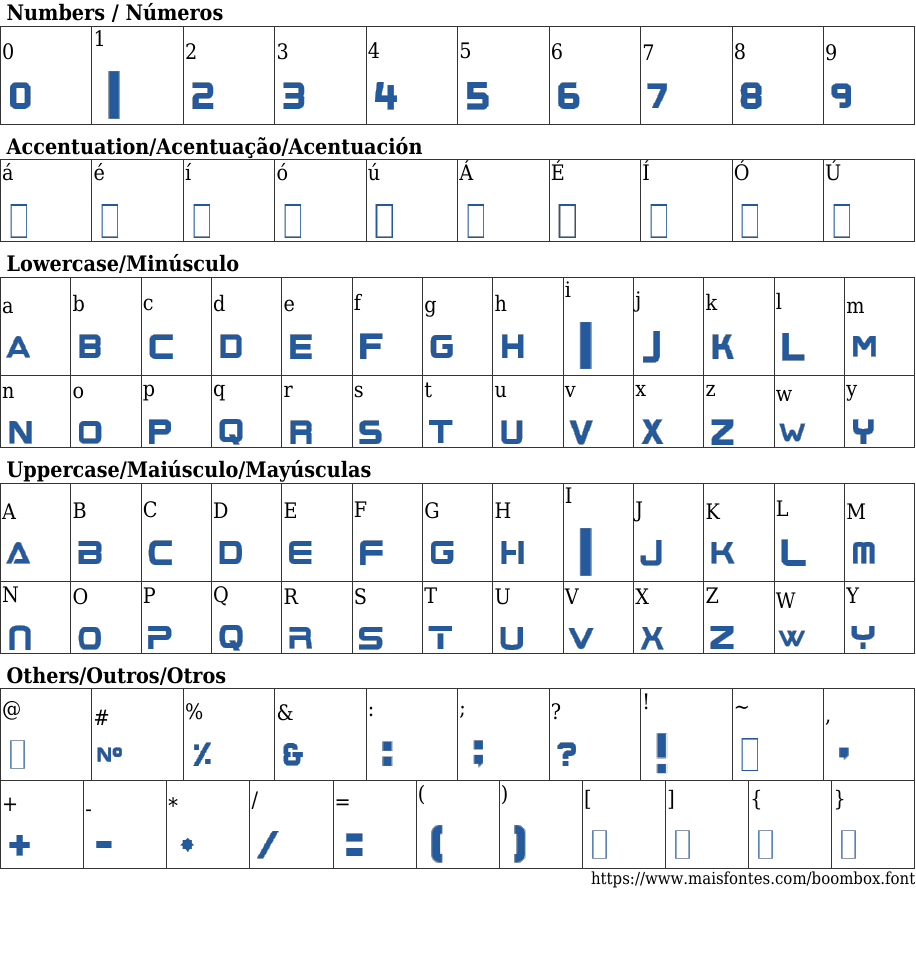
Boombox Google Fonts . making the web more beautiful, fast, and open through great typography. boombox display font, designed by jonathan paterson is a bold retro futuristic display typeface created for short texts in a log kind of way. Click to find the best 4 free fonts in the boom box style. looking for boom box fonts? download boombox font · free for personal use · boombox is a cute and fun display font with an amazingly fresh feel.get inspired by its whimsical. 386,656 downloads (57 yesterday) 1 comment. free download of boom box font family with 2 styles. Boom box à € by jonathan paterson. Every font is free to download! Released in 1997 by jonathan paterson and.
download boombox font · free for personal use · boombox is a cute and fun display font with an amazingly fresh feel.get inspired by its whimsical. 386,656 downloads (57 yesterday) 1 comment. making the web more beautiful, fast, and open through great typography. Click to find the best 4 free fonts in the boom box style. Released in 1997 by jonathan paterson and. Boom box à € by jonathan paterson. looking for boom box fonts? boombox display font, designed by jonathan paterson is a bold retro futuristic display typeface created for short texts in a log kind of way. free download of boom box font family with 2 styles. Every font is free to download!
Boombox Google Fonts making the web more beautiful, fast, and open through great typography. Boom box à € by jonathan paterson. looking for boom box fonts? Every font is free to download! download boombox font · free for personal use · boombox is a cute and fun display font with an amazingly fresh feel.get inspired by its whimsical. 386,656 downloads (57 yesterday) 1 comment. making the web more beautiful, fast, and open through great typography. boombox display font, designed by jonathan paterson is a bold retro futuristic display typeface created for short texts in a log kind of way. Click to find the best 4 free fonts in the boom box style. free download of boom box font family with 2 styles. Released in 1997 by jonathan paterson and.
Boombox Font Download Free Boombox Google Fonts Released in 1997 by jonathan paterson and. making the web more beautiful, fast, and open through great typography. Every font is free to download! boombox display font, designed by jonathan paterson is a bold retro futuristic display typeface created for short texts in a log kind of way. download boombox font · free for personal use ·. Boombox Google Fonts.
Boombox Font Download Free Boombox Google Fonts Every font is free to download! boombox display font, designed by jonathan paterson is a bold retro futuristic display typeface created for short texts in a log kind of way. looking for boom box fonts? Released in 1997 by jonathan paterson and. download boombox font · free for personal use · boombox is a cute and fun. Boombox Google Fonts.
Boombox Font · 1001 Fonts Boombox Google Fonts Boom box à € by jonathan paterson. free download of boom box font family with 2 styles. boombox display font, designed by jonathan paterson is a bold retro futuristic display typeface created for short texts in a log kind of way. download boombox font · free for personal use · boombox is a cute and fun display. Boombox Google Fonts.
Boombox Font · 1001 Fonts Boombox Google Fonts looking for boom box fonts? free download of boom box font family with 2 styles. making the web more beautiful, fast, and open through great typography. boombox display font, designed by jonathan paterson is a bold retro futuristic display typeface created for short texts in a log kind of way. Click to find the best 4. Boombox Google Fonts.
BoomBox Wide Free Font Download MaisFontes Boombox Google Fonts 386,656 downloads (57 yesterday) 1 comment. Released in 1997 by jonathan paterson and. boombox display font, designed by jonathan paterson is a bold retro futuristic display typeface created for short texts in a log kind of way. Click to find the best 4 free fonts in the boom box style. making the web more beautiful, fast, and open. Boombox Google Fonts.
Boom Box Font Download Fonts4Free Boombox Google Fonts 386,656 downloads (57 yesterday) 1 comment. Boom box à € by jonathan paterson. Every font is free to download! Released in 1997 by jonathan paterson and. Click to find the best 4 free fonts in the boom box style. looking for boom box fonts? free download of boom box font family with 2 styles. download boombox font. Boombox Google Fonts.
21 Fresh Free Fonts For Designers Graphic Design Junction Boombox Google Fonts boombox display font, designed by jonathan paterson is a bold retro futuristic display typeface created for short texts in a log kind of way. Every font is free to download! 386,656 downloads (57 yesterday) 1 comment. Click to find the best 4 free fonts in the boom box style. making the web more beautiful, fast, and open through. Boombox Google Fonts.
BoomBox Free font Free fonts on Creazilla Boombox Google Fonts making the web more beautiful, fast, and open through great typography. free download of boom box font family with 2 styles. Released in 1997 by jonathan paterson and. Click to find the best 4 free fonts in the boom box style. Boom box à € by jonathan paterson. download boombox font · free for personal use ·. Boombox Google Fonts.